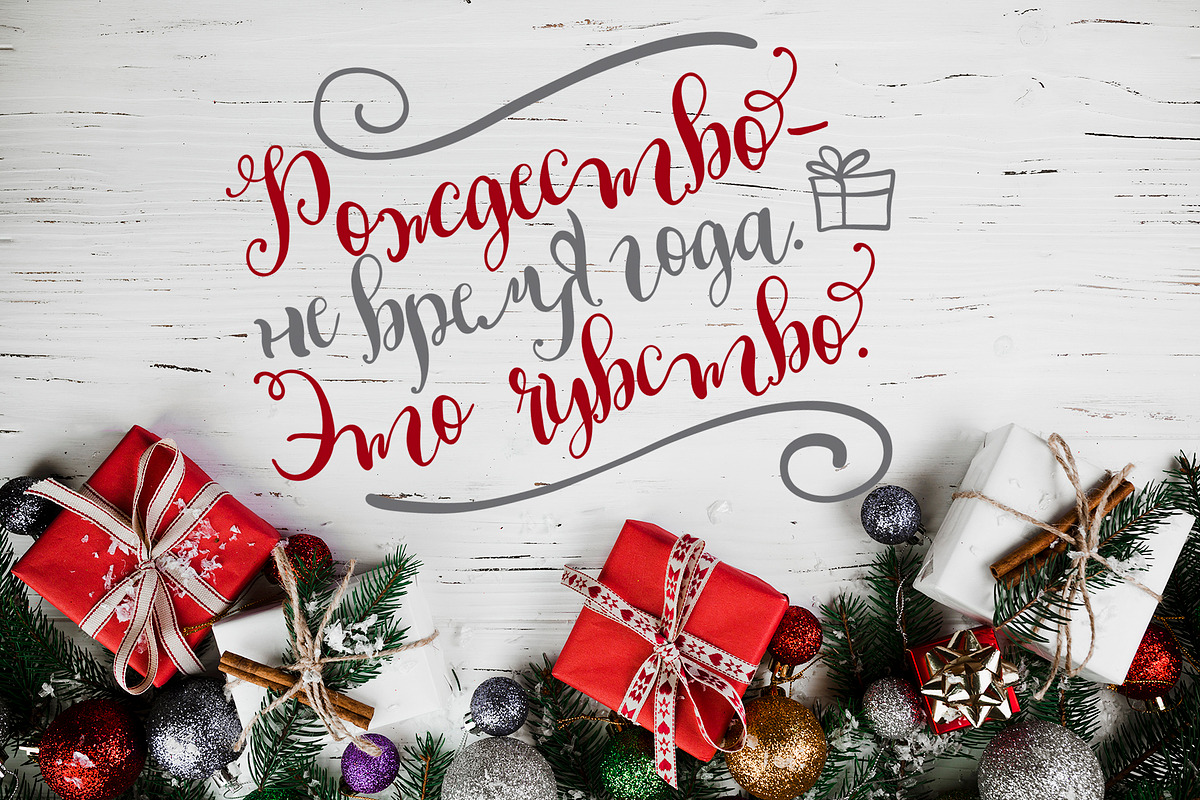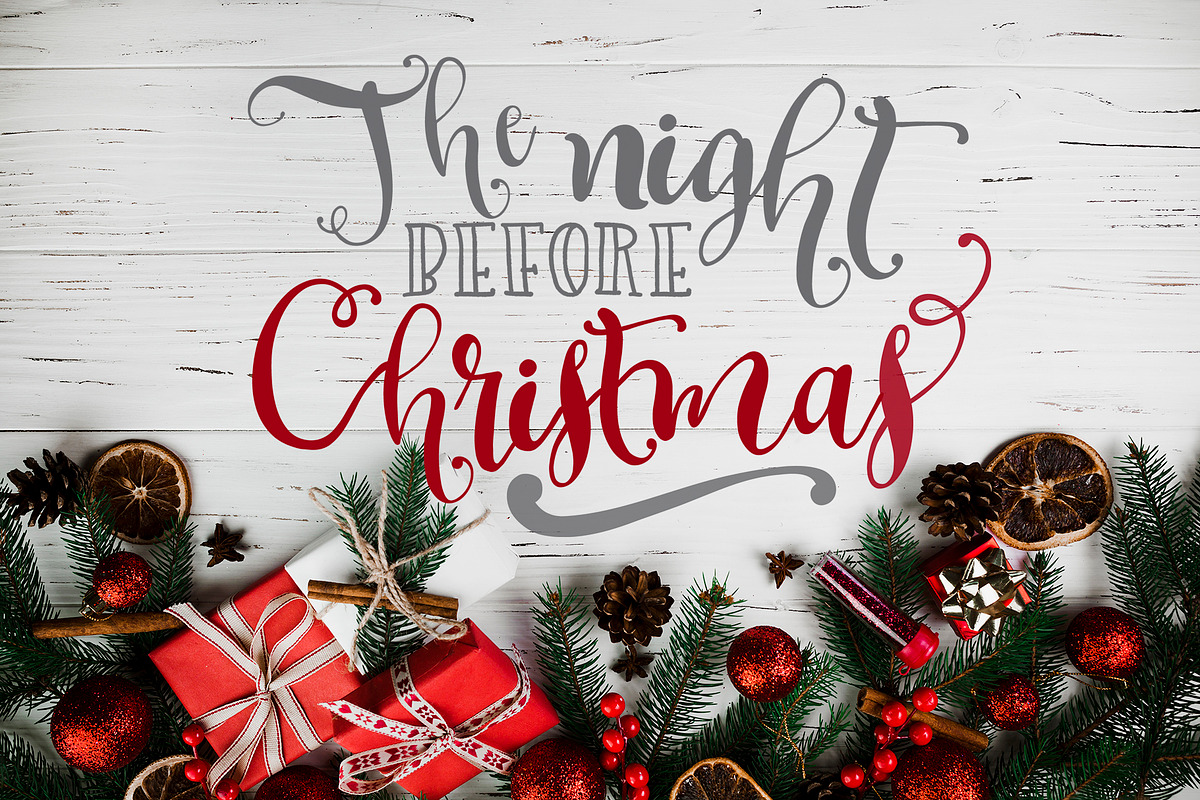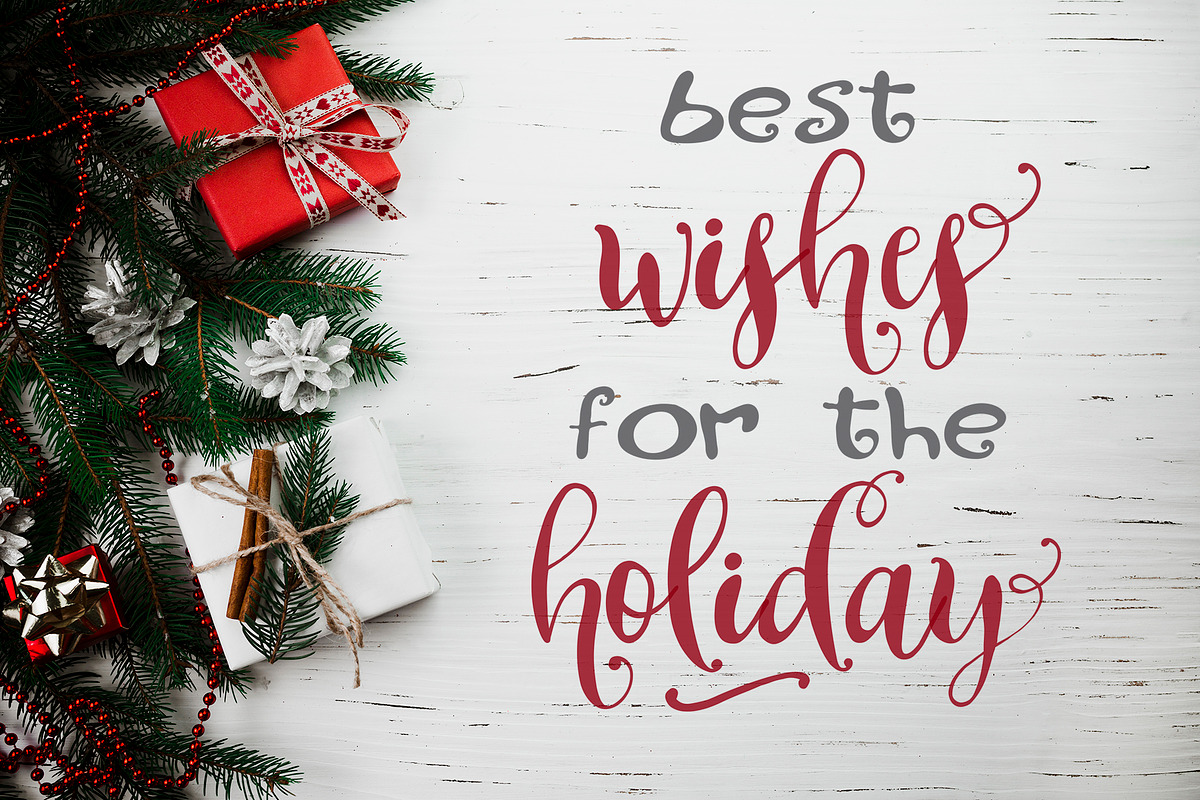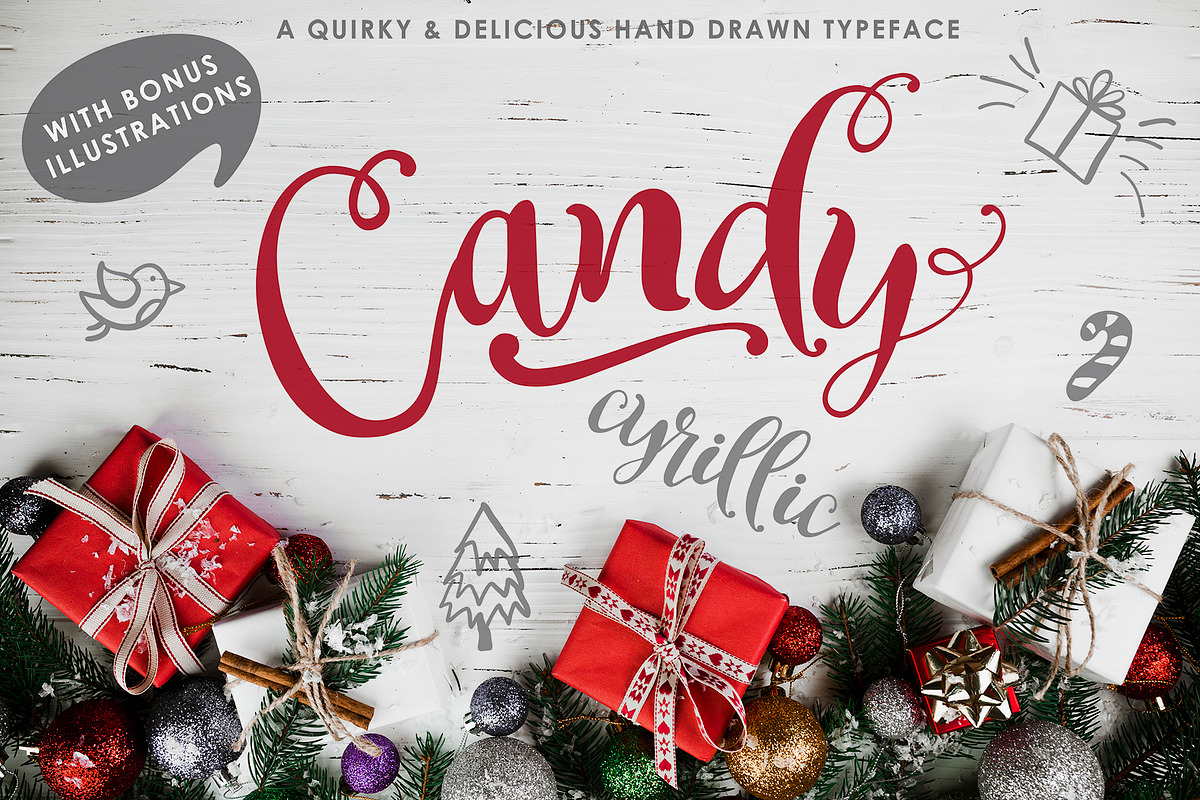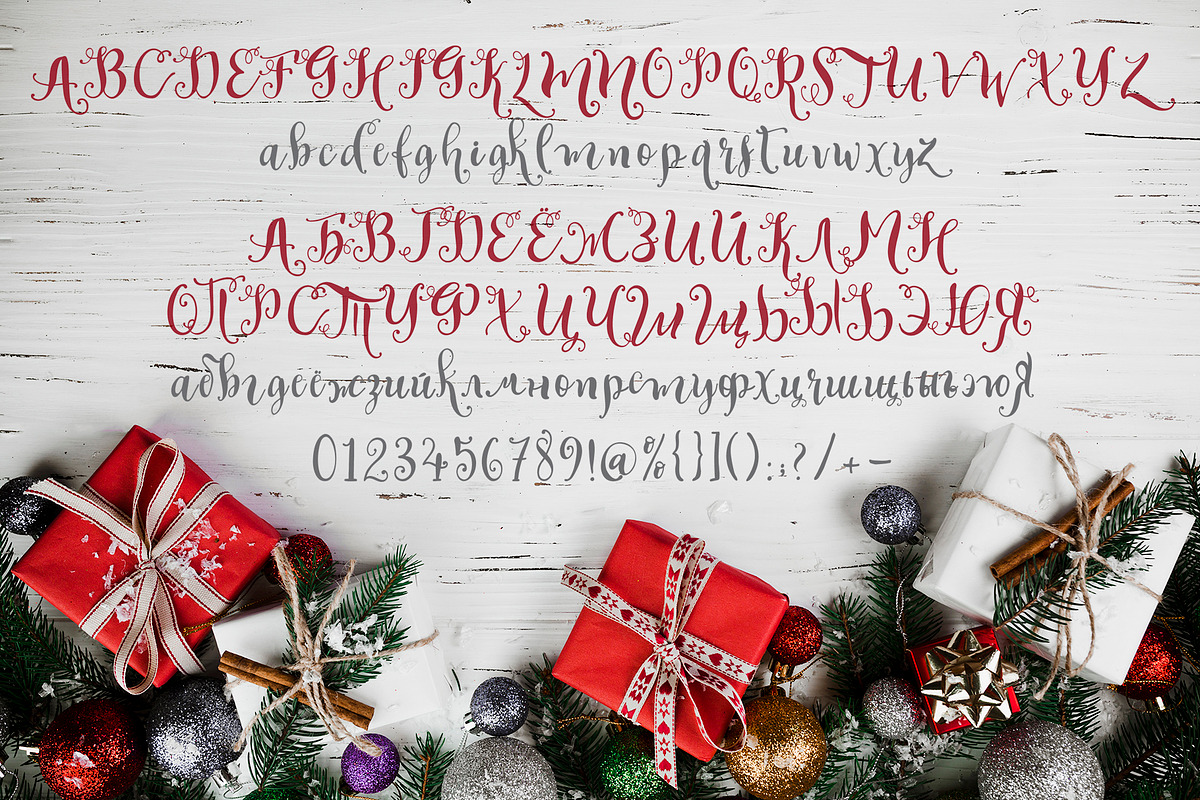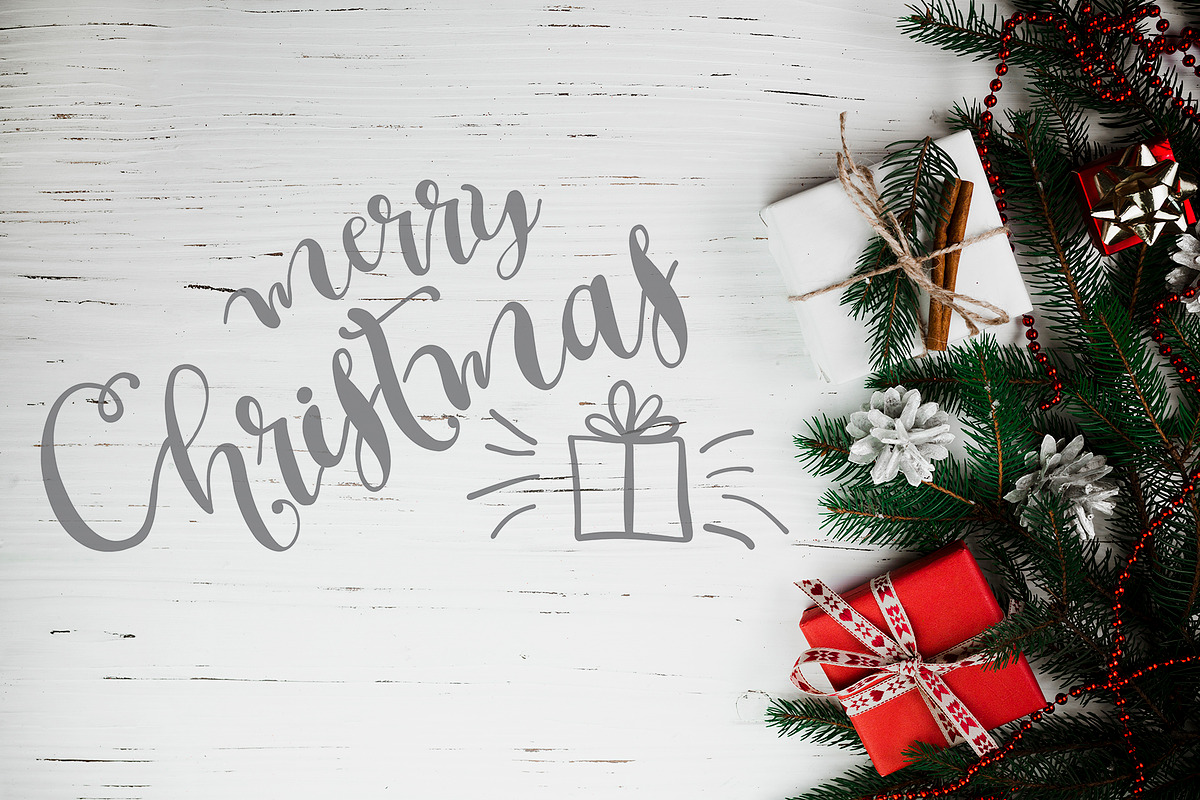
Candy - A Christmas Typeface
Candy - decor font for your projects! This font is fully hand-drawn that makes it look cute and cozy!
The set contain set bonus elements. You can use the fully editable doodles. Christmas greeting cards, wedding cards, invitations or decorate your website! Candy comes with basic and lowercase characters, numbers, signs and punctuation.Ligatures are also included to bring true authenticity to your design. It has multilingual support with accented characters for international users.
Also you can use the letters as separate objects to make cool combinations for cards and photos decor. Look through the previews to see the examples!
Add some Christmas and celebration mood to your artworks with Candy!